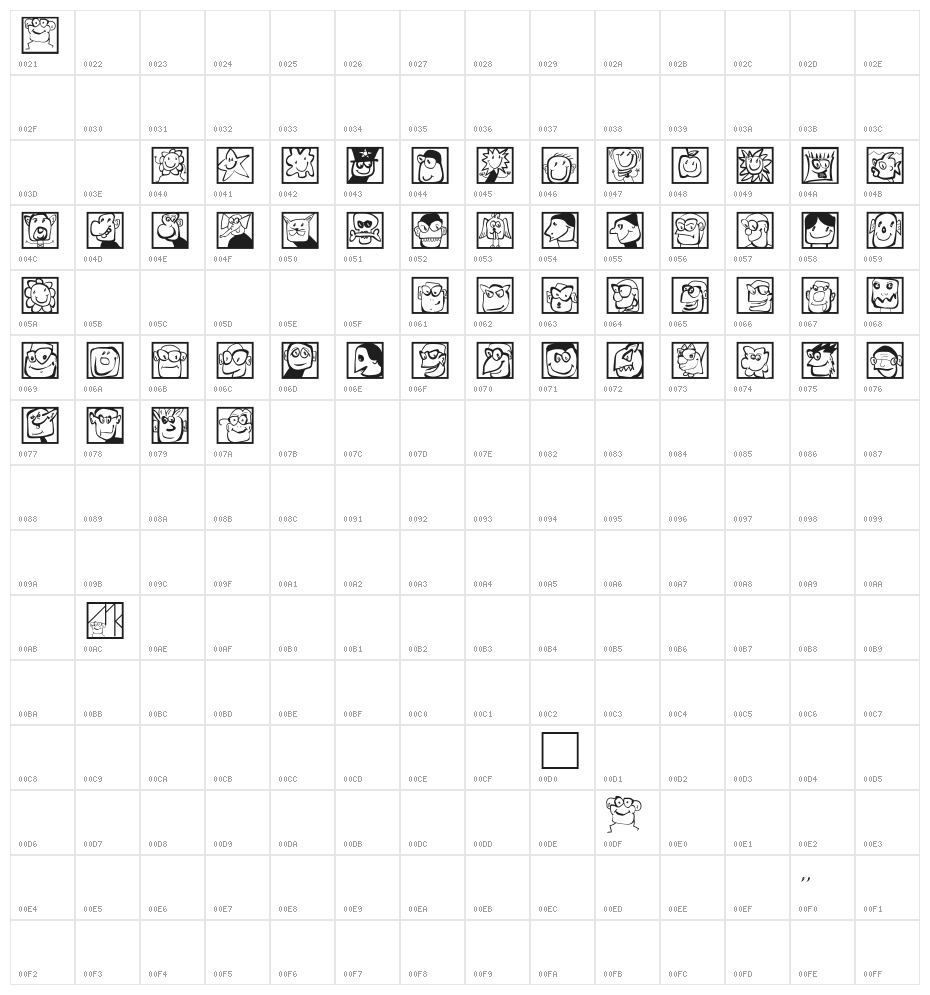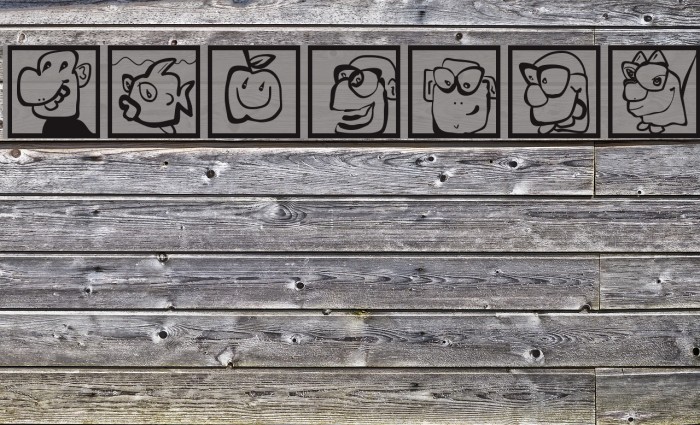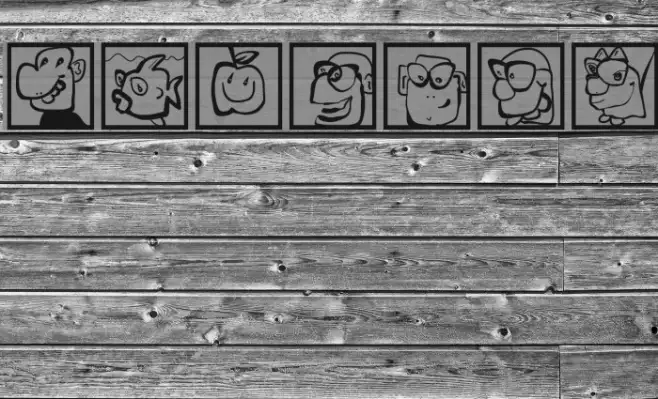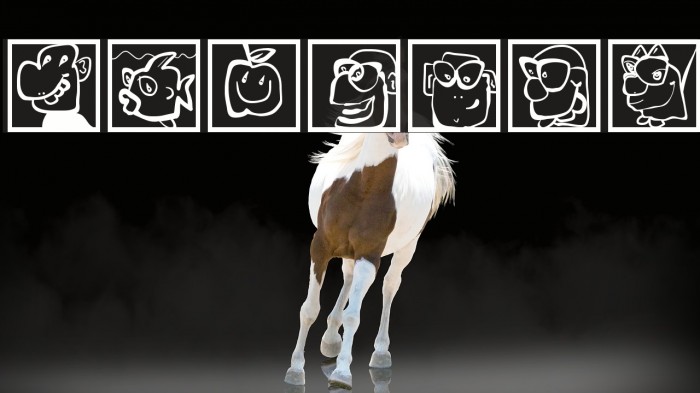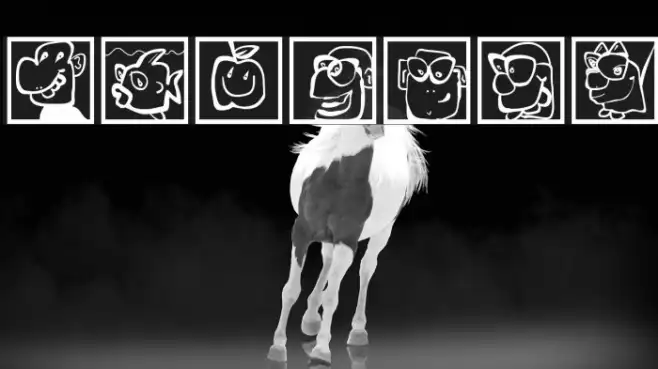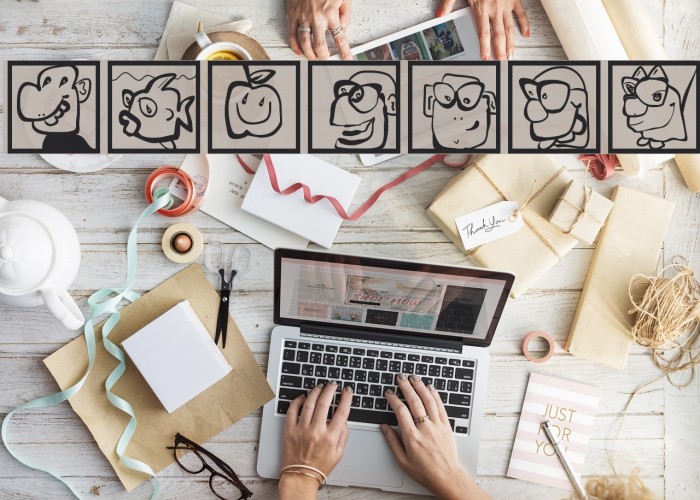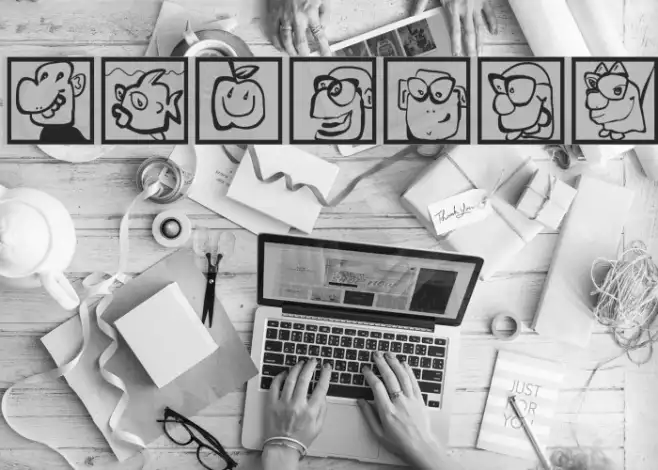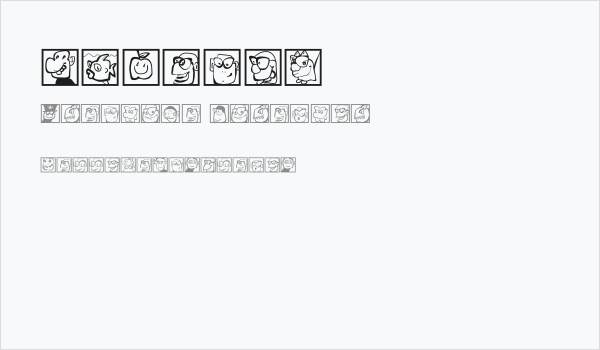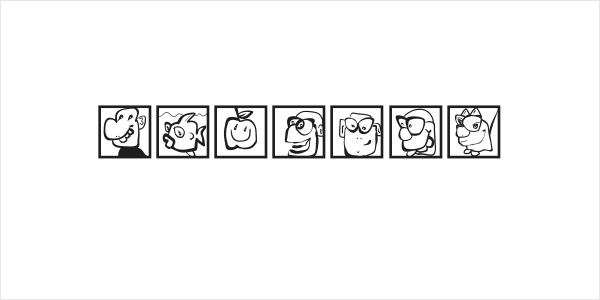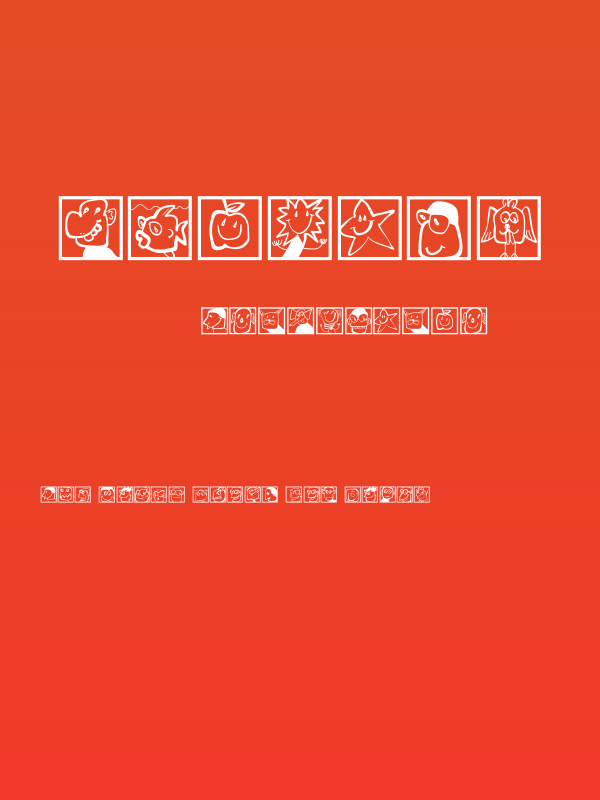
MKHeads Font
MKHeads Description
This is a whimsical and playful collection of cartoon-style character illustrations, each enclosed within a square frame. The characters are diverse, featuring a variety of facial expressions and unique features, adding a humorous and lighthearted touch. The style is bold and graphic, with thick outlines and minimalistic details that emphasize the quirky nature of each character. The uniformity in the framing and the consistent use of black and white colors create a cohesive look, making it suitable for projects that aim to convey fun and creativity.
| Use Case | Logos, Illustrations, Comics |
| Proposed Projects | Ideal for children's books, comic strips, playful branding, or any project needing a fun and creative touch. |